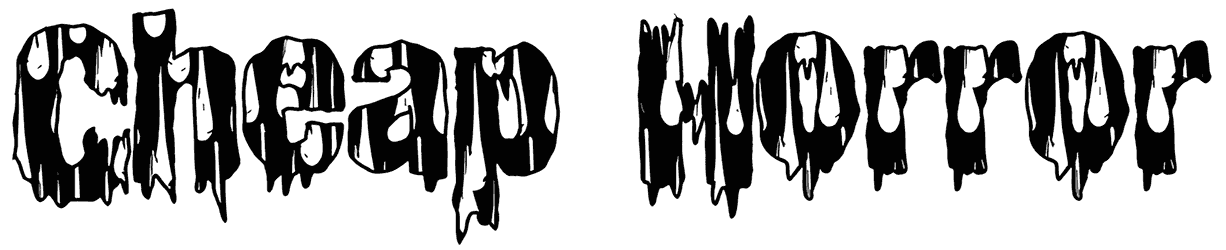
Horror is all you are looking for, and here in the horror font category, we are prepared with lots of options for you. Cheap Horror is a perfect example to start with; bold and melting letters that are dripping give your audience a creepy vibe.
This slime font is perfect for commercials, Halloween posters, packaging, scary movies, etc. The punctuation marks are the only thing that is lacking in this collection. Check out RB for the newest updates.